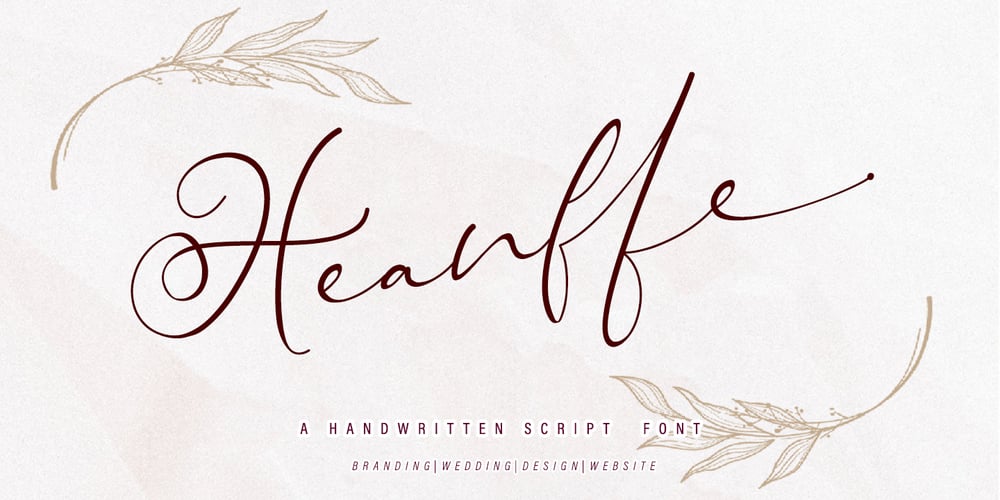
Heanffe
Heanffe font
Heanffe Font Family was designed by Thomas Aradea and published by Letterara. Heanffe contains 4 styles and family package options. Heanffe is a one-of-a-kind handwritten font with a beautiful feel. To maintain a true, hand lettered experience, this font includes the following ligatures: Alu, at, ch, dd, ee, ff, ll, oo, pp, ss, tt, ef, es, et, eth, ily, it, ith, om, ot, on, ou, ont, th, ov, ow, sh, st, ut, zz Just use your imagination, your project will become more alive and look Elegant than ever with one of the Heanffe font. Feel free to play with all the whole alternates! Heanffe also includes full set of uppercase and lowercase letters, multilingual symbols, numerals, punctuation. The font has smooth wet ink texture, so would be perfect for all designs. You can make a greeting card or a package design, or even a brand identity, craft design, any DIY project, book title, wedding invitation, identity card, packaging, Website or any purpose to make your art / design project look pretty and trendy.